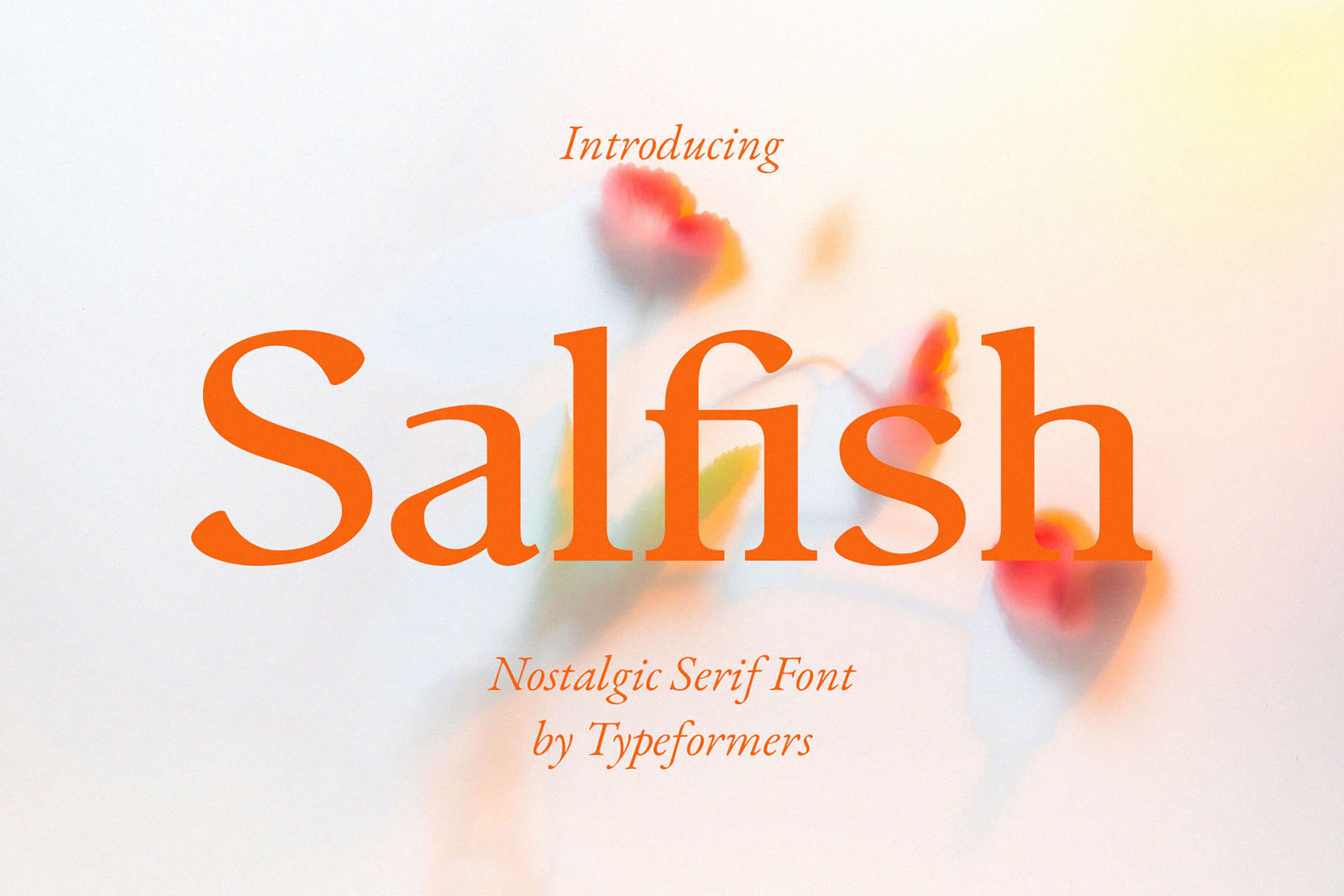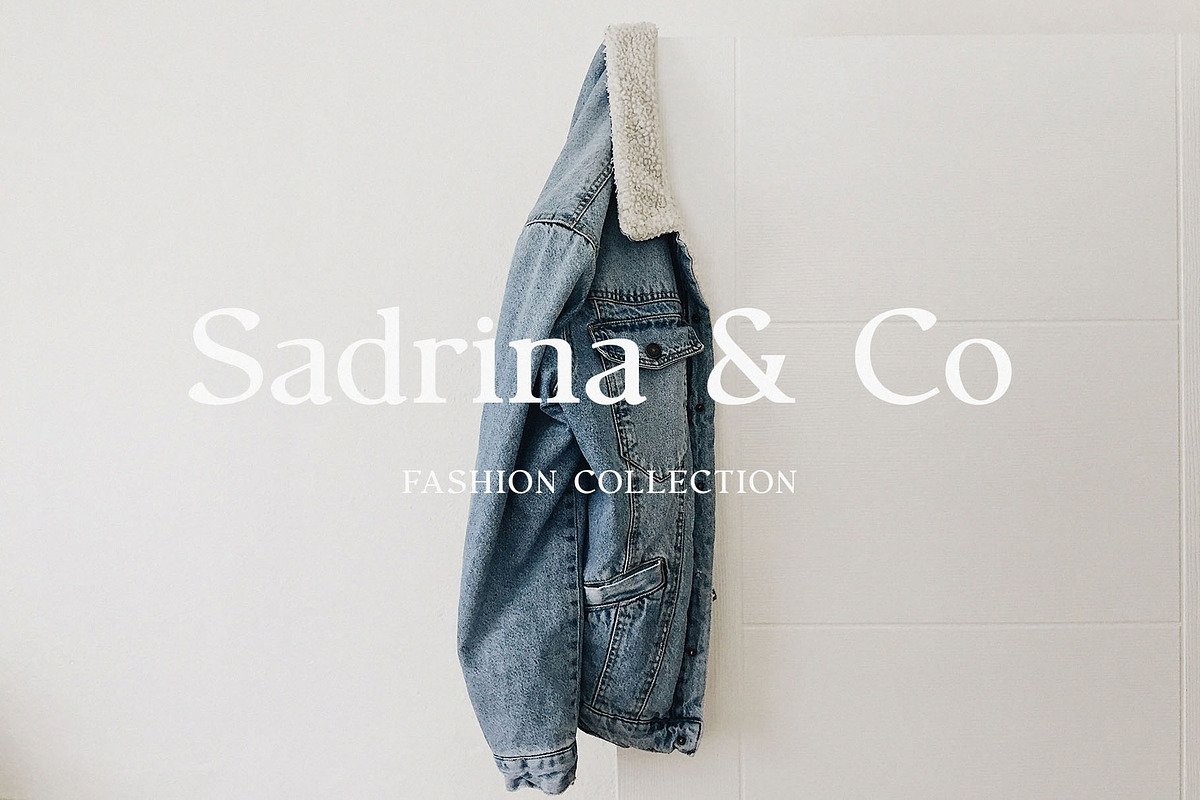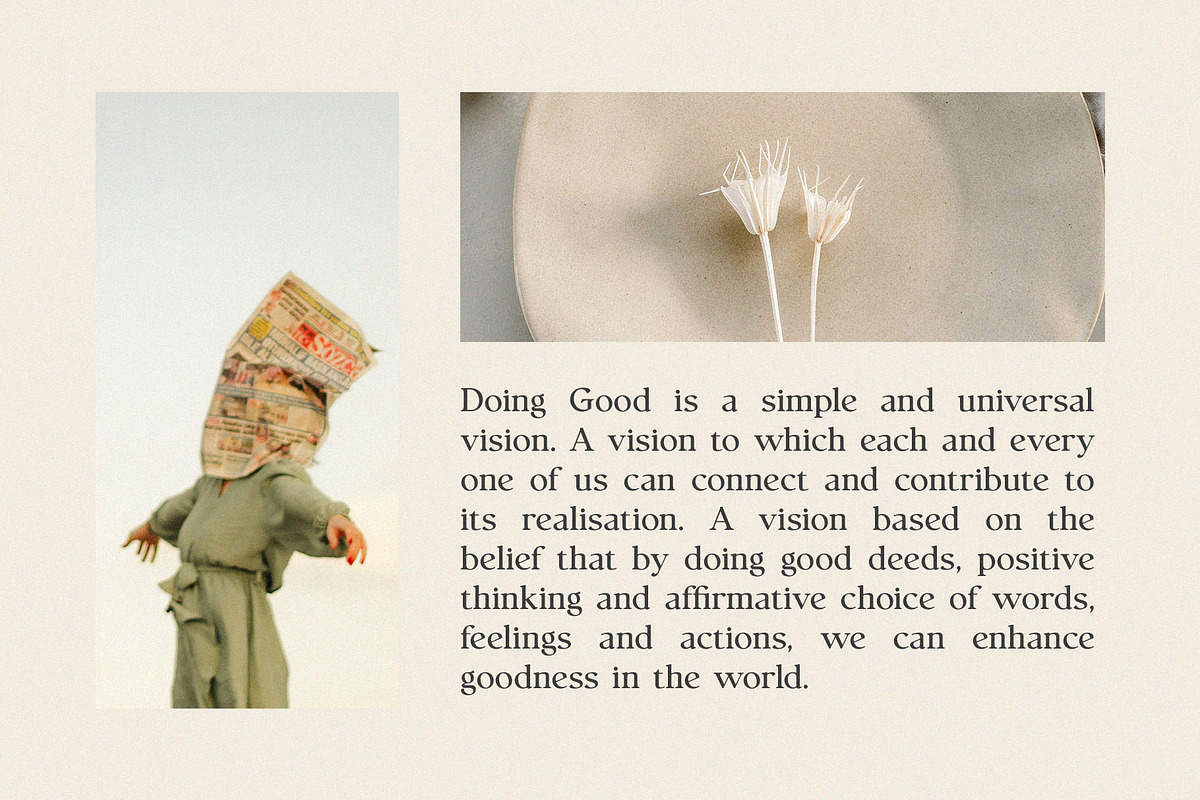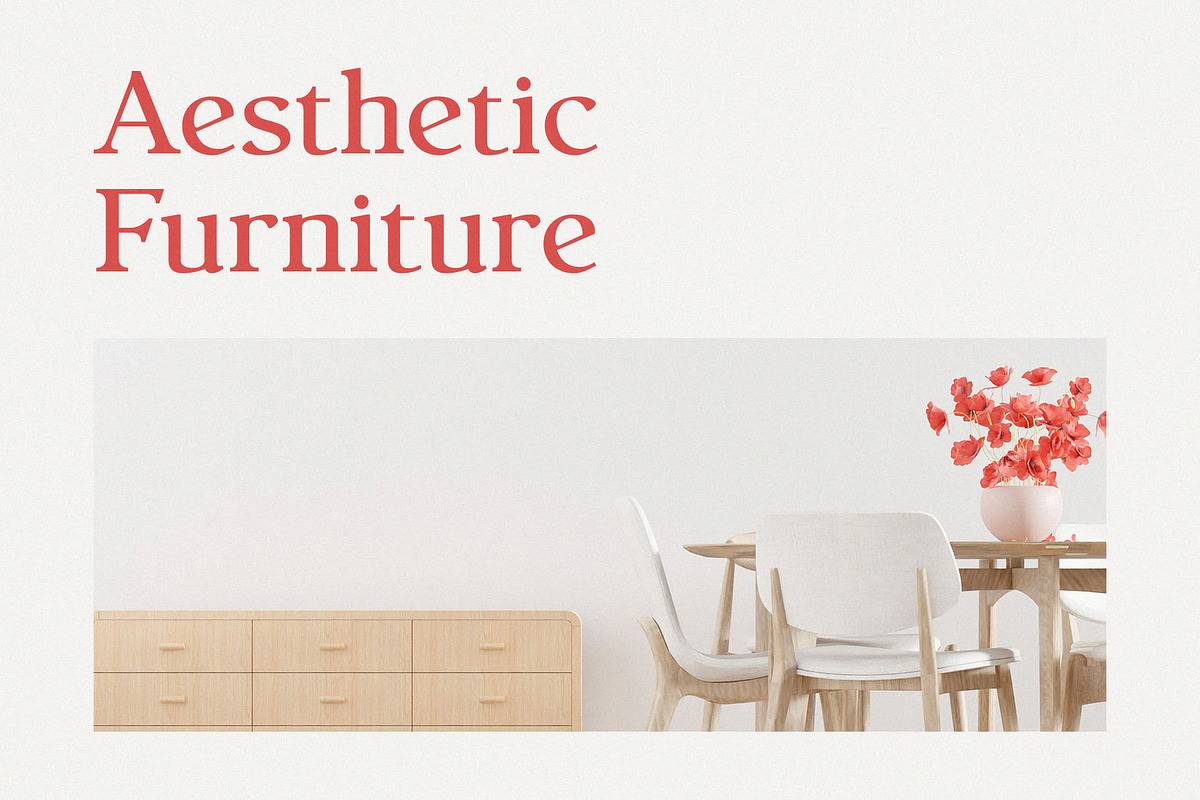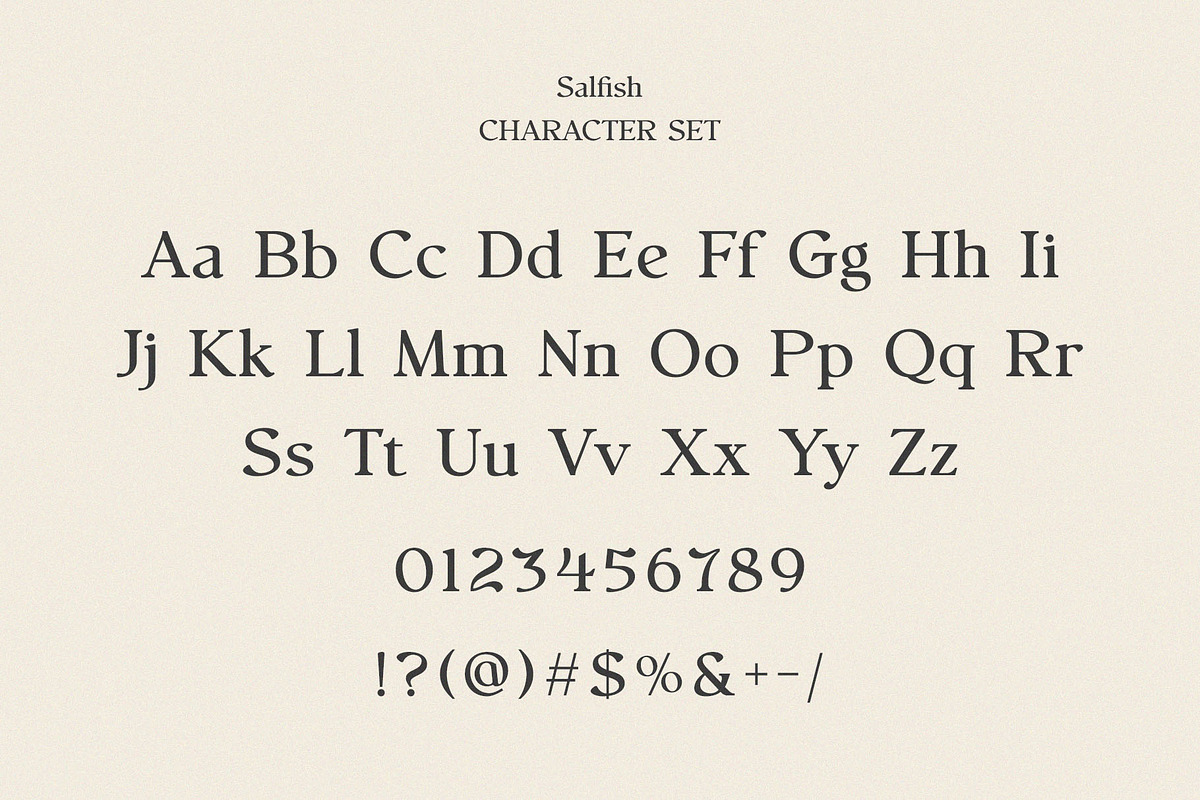
Salfish - Nostalgic Serif Font
Introducing Salfish - Nostalgic Serif Font. Salfish is a nostalgic and simple font, best used as a display for headings, logos, branding, magazines, product packaging and invitations.